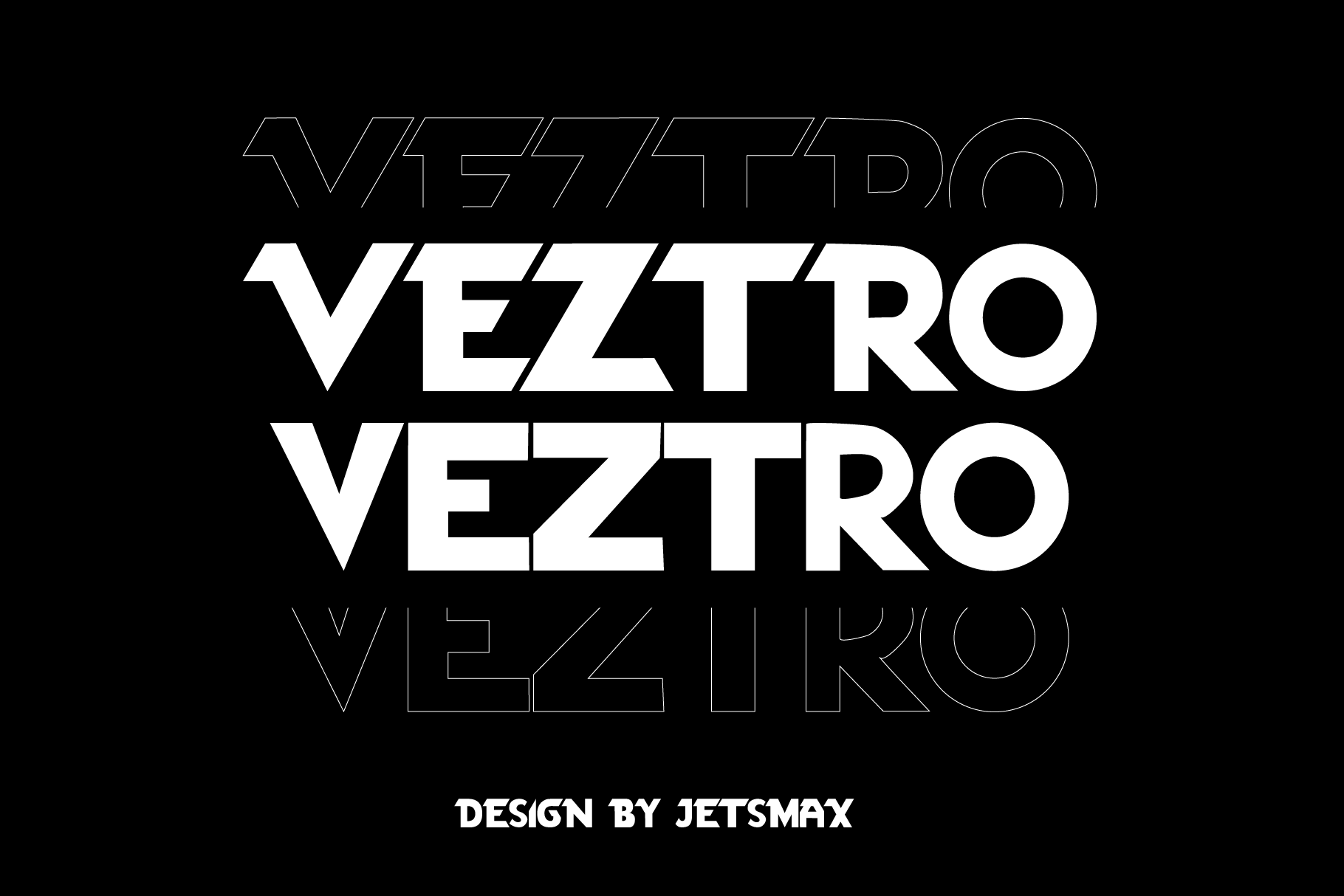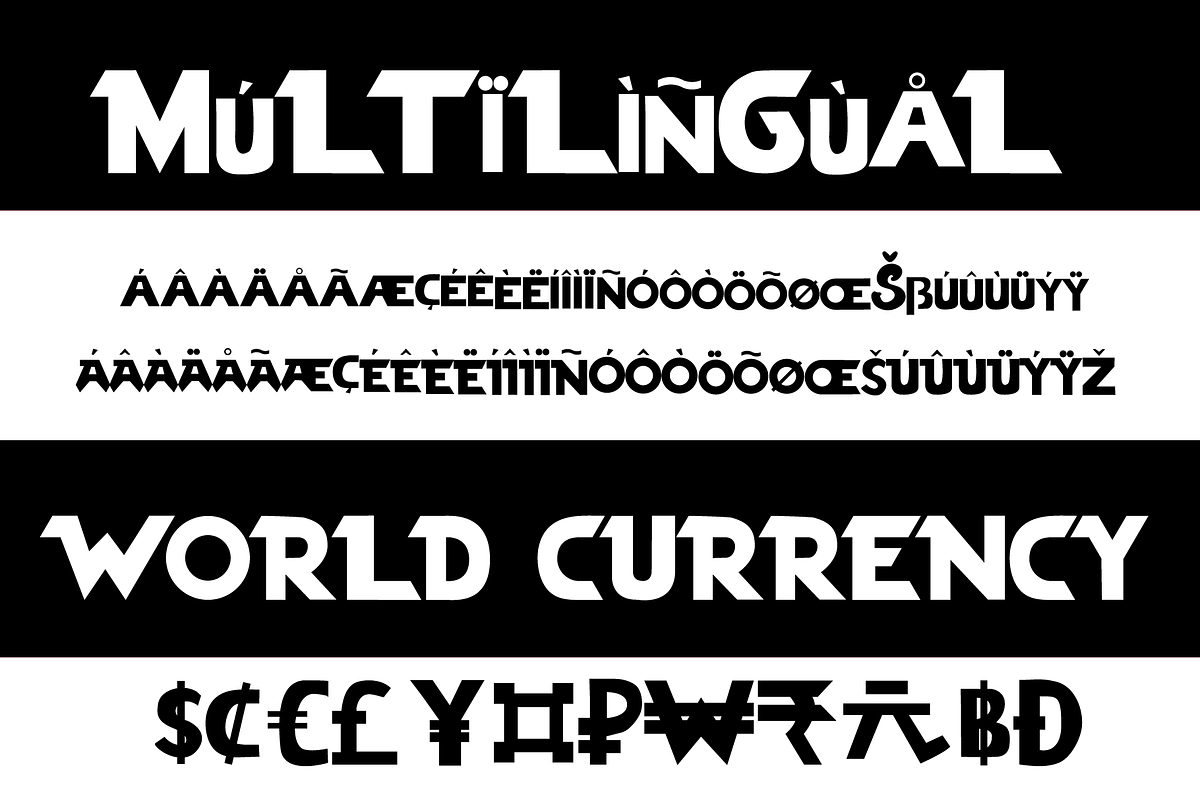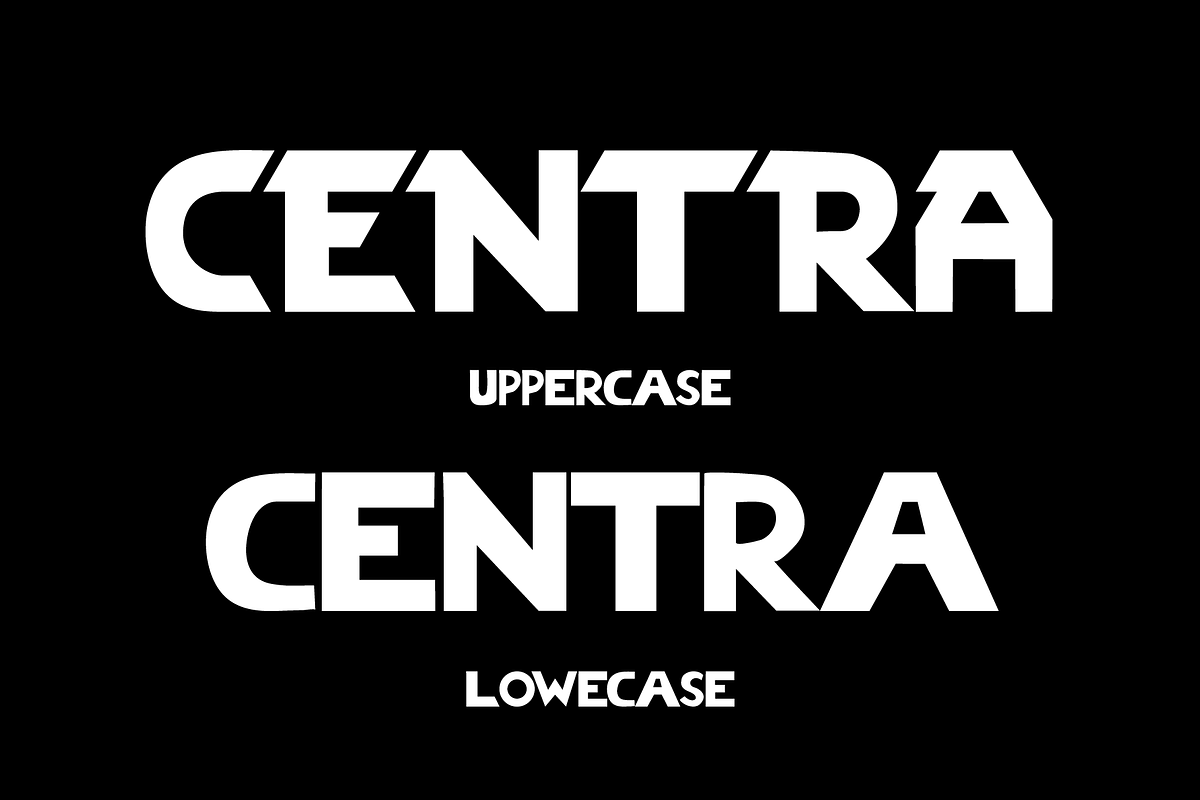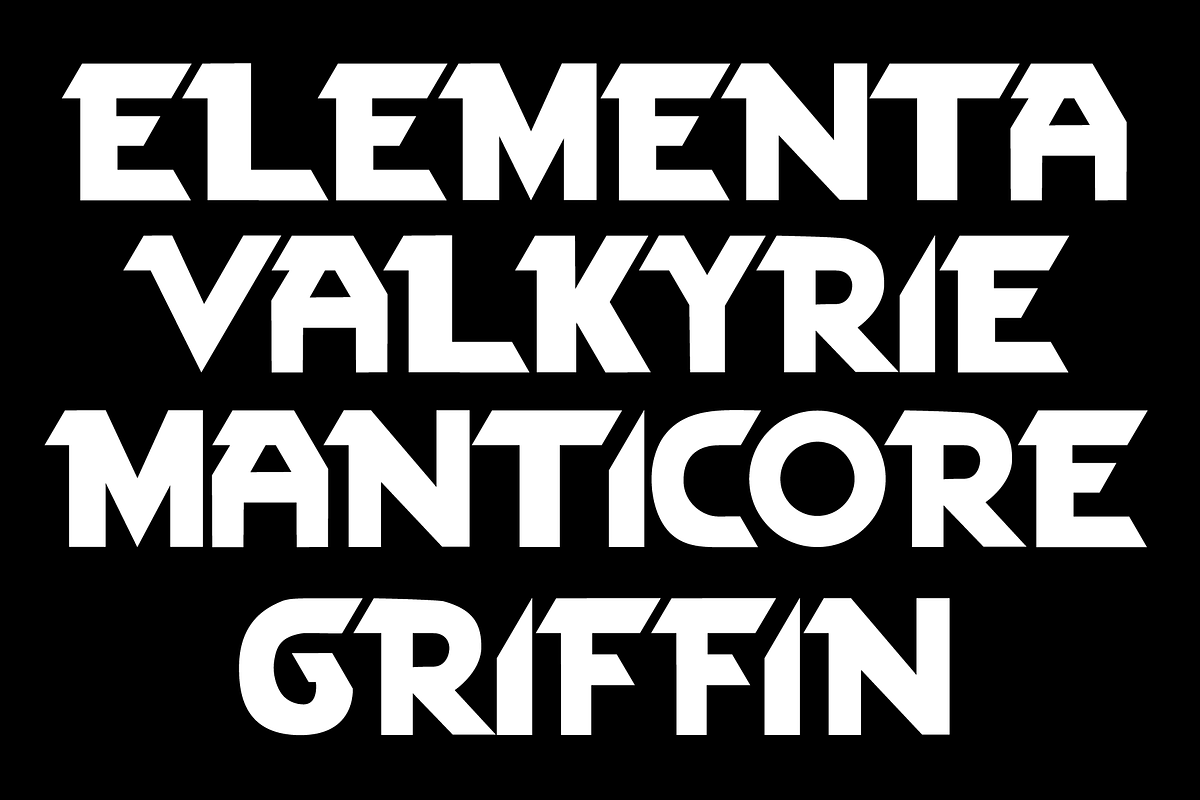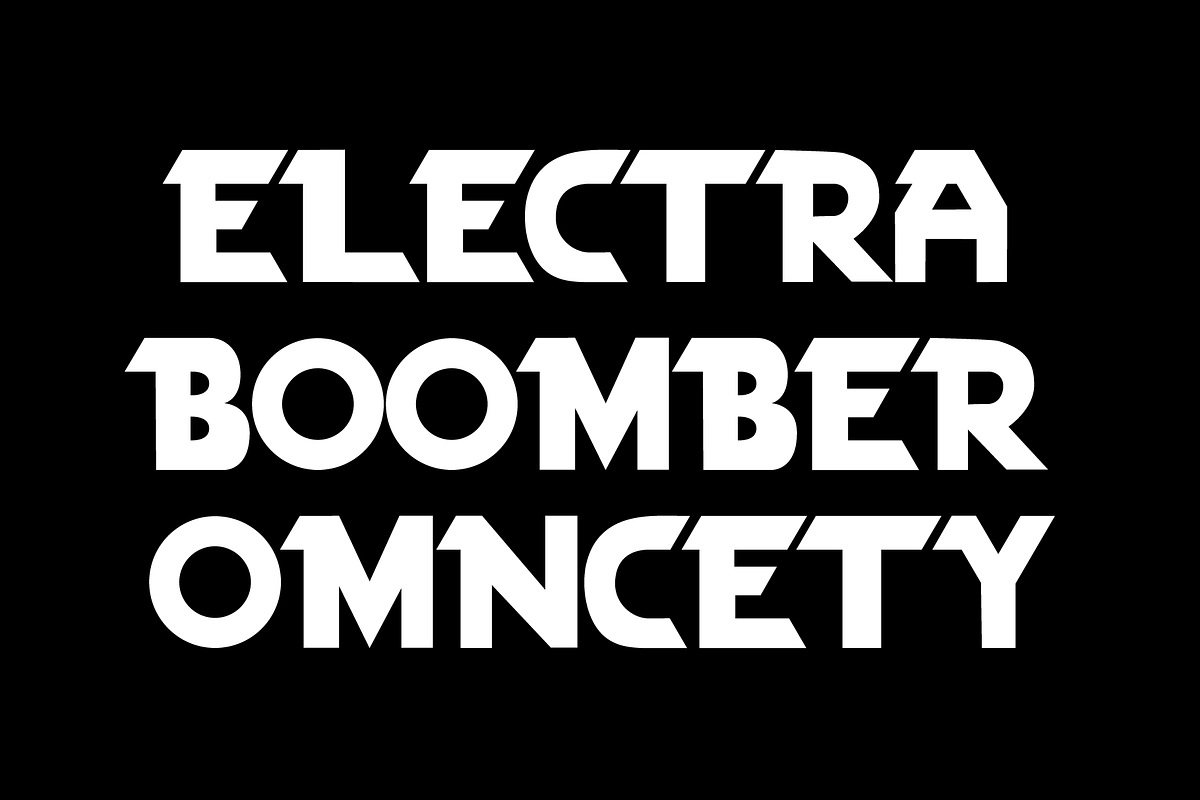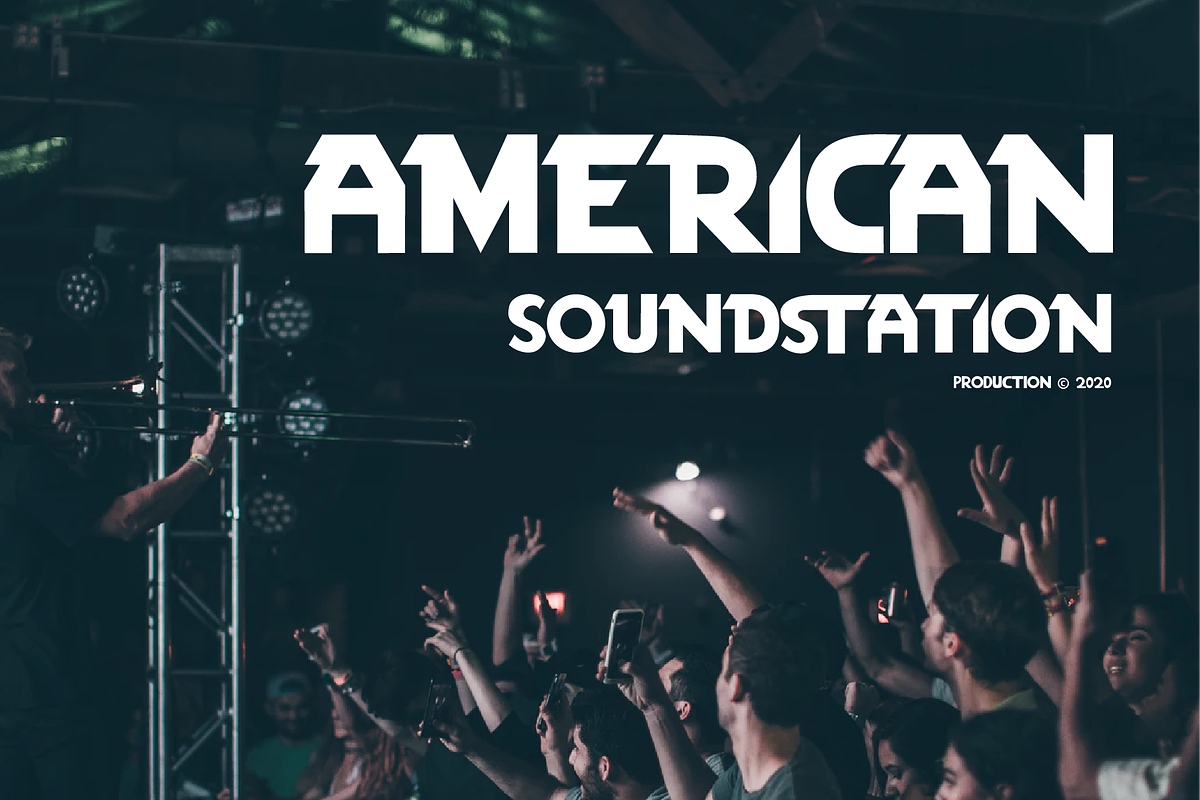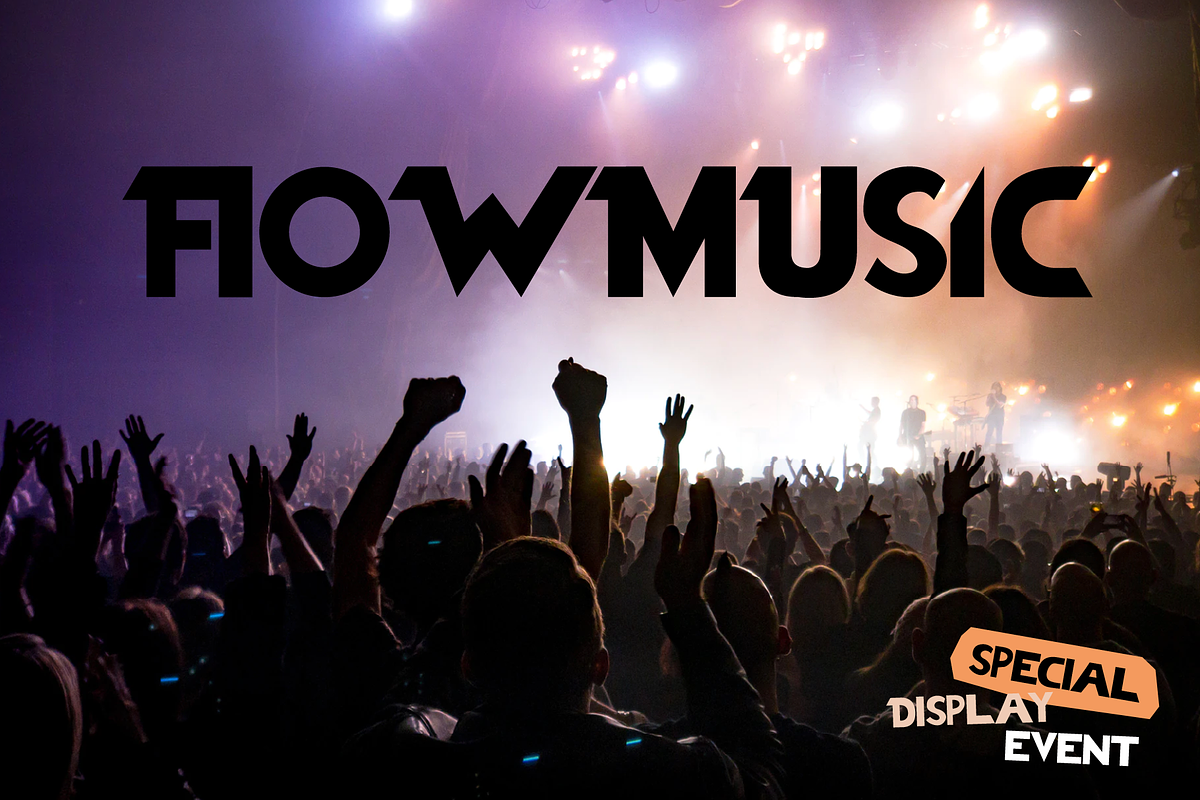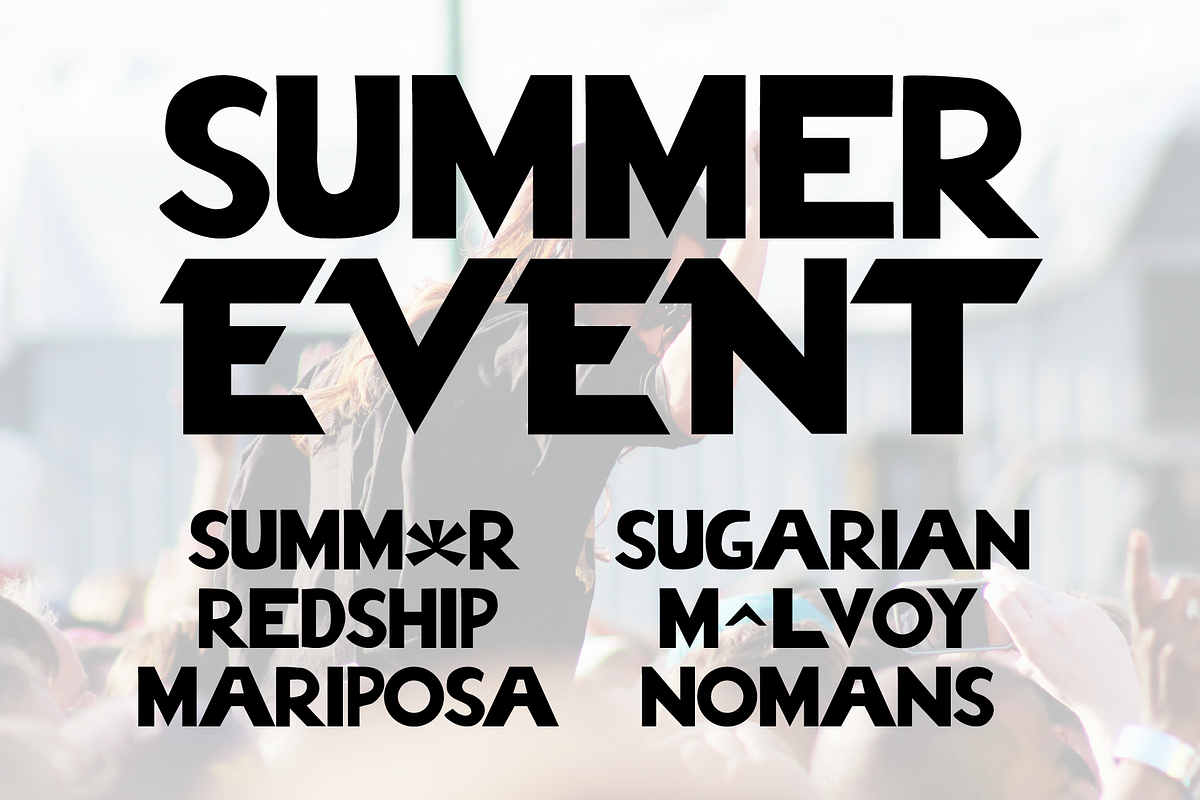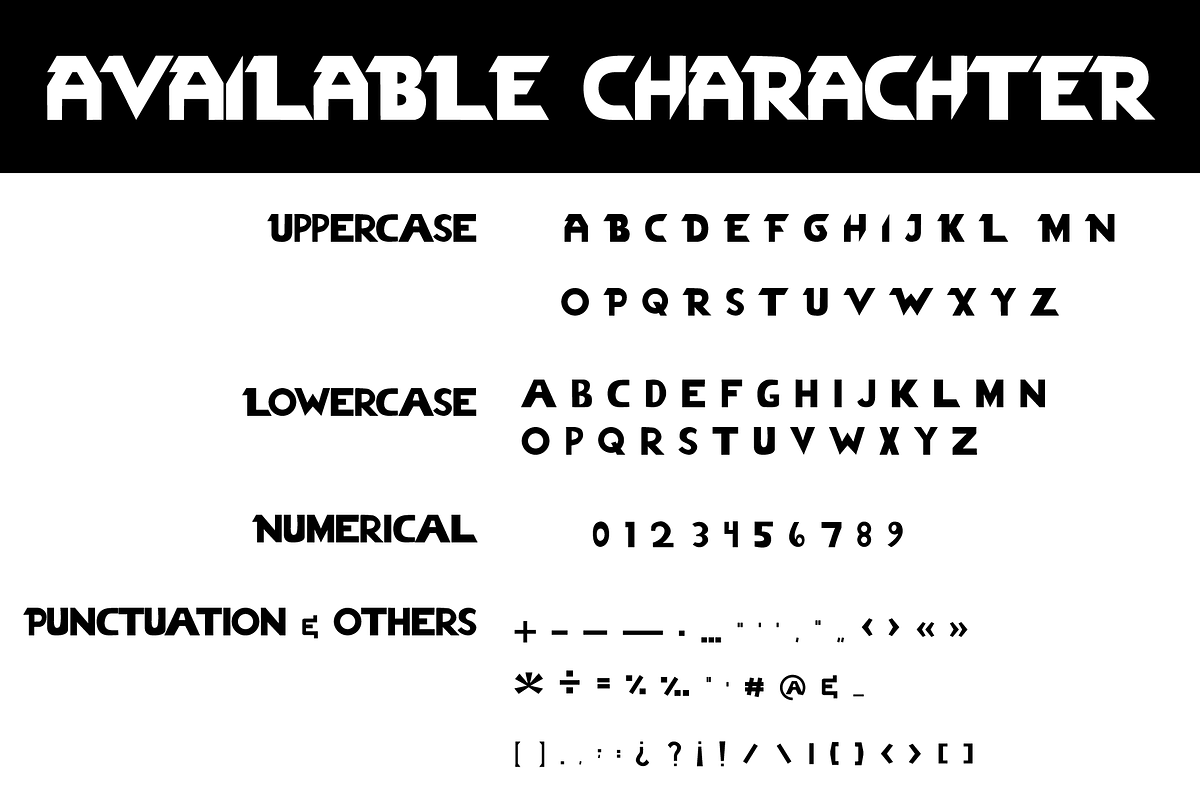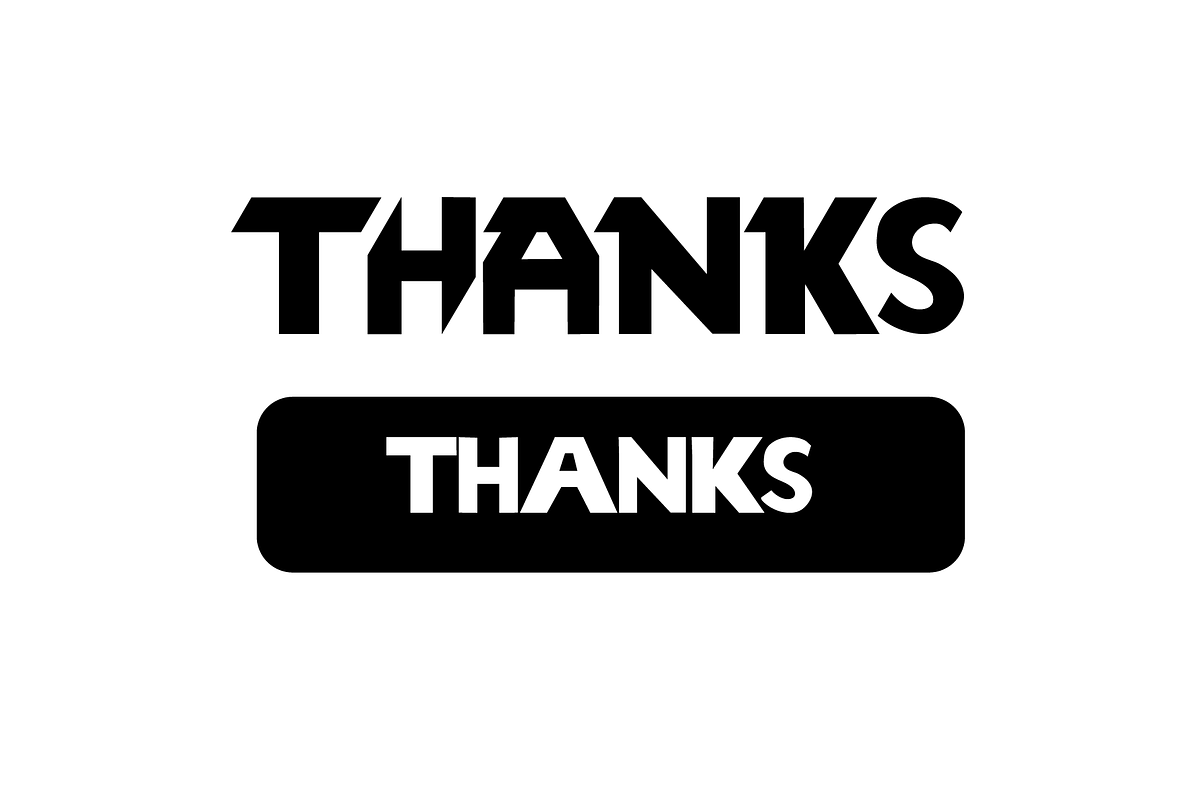
Veztro - Modern Typeface
Veztro is a modern display font with a dash of futuristic touch around the edges. If you wished for your projects to look more upbeat, then Veztro is your answer!
Veztro best uses for logotype, poster, cover, branding, social media posts, business cards, presentation, portfolio and many more. Rock your design with Veztro!
- Special and Unique